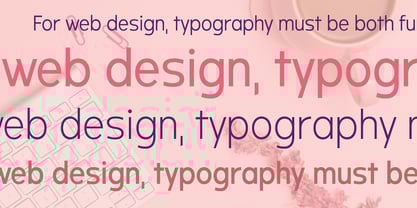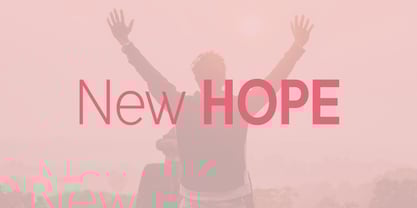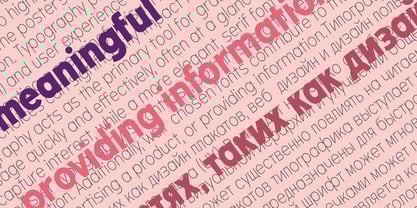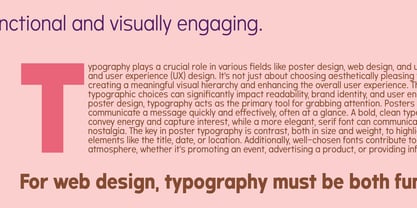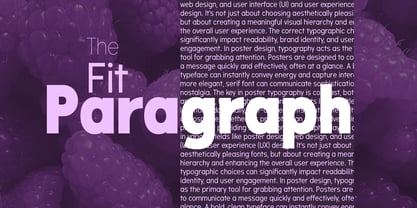
Crox Condensed
by NumidiaType
The Crox Condensed Font Family was designed by Yassine Abdi and published by NumidiaType. Crox Condensed contains 20 styles and family package options.
Crox™ Condensed 2.0 is a streamlined extension of the Crox™ type system, engineered for maximum efficiency and visual impact within limited horizontal space. Built on the geometric foundation of circles, squares, and triangles, Crox™ Condensed preserves the precision, clarity, and professional tone of the original Crox™ family while introducing a narrower, space saving structure ideal for modern layouts. Its condensed proportions enhance vertical rhythm and create a strong, contemporary presence, making it perfect for headlines, branding systems, posters, and high density UI or data displays. Designed with the same commitment to refinement, Crox™ Condensed features optimized kerning, meticulously crafted glyphs, and advanced OpenType features that ensure consistent performance across digital and print environments. With extensive language support and a design that maintains legibility even at tight widths, Crox™ Condensed delivers an elegant solution for designers seeking bold expression, efficient space usage, and professional geometric style.
Designers: Yassine Abdi
Publisher: NumidiaType
Foundry: NumidiaType
Design Owner: NumidiaType